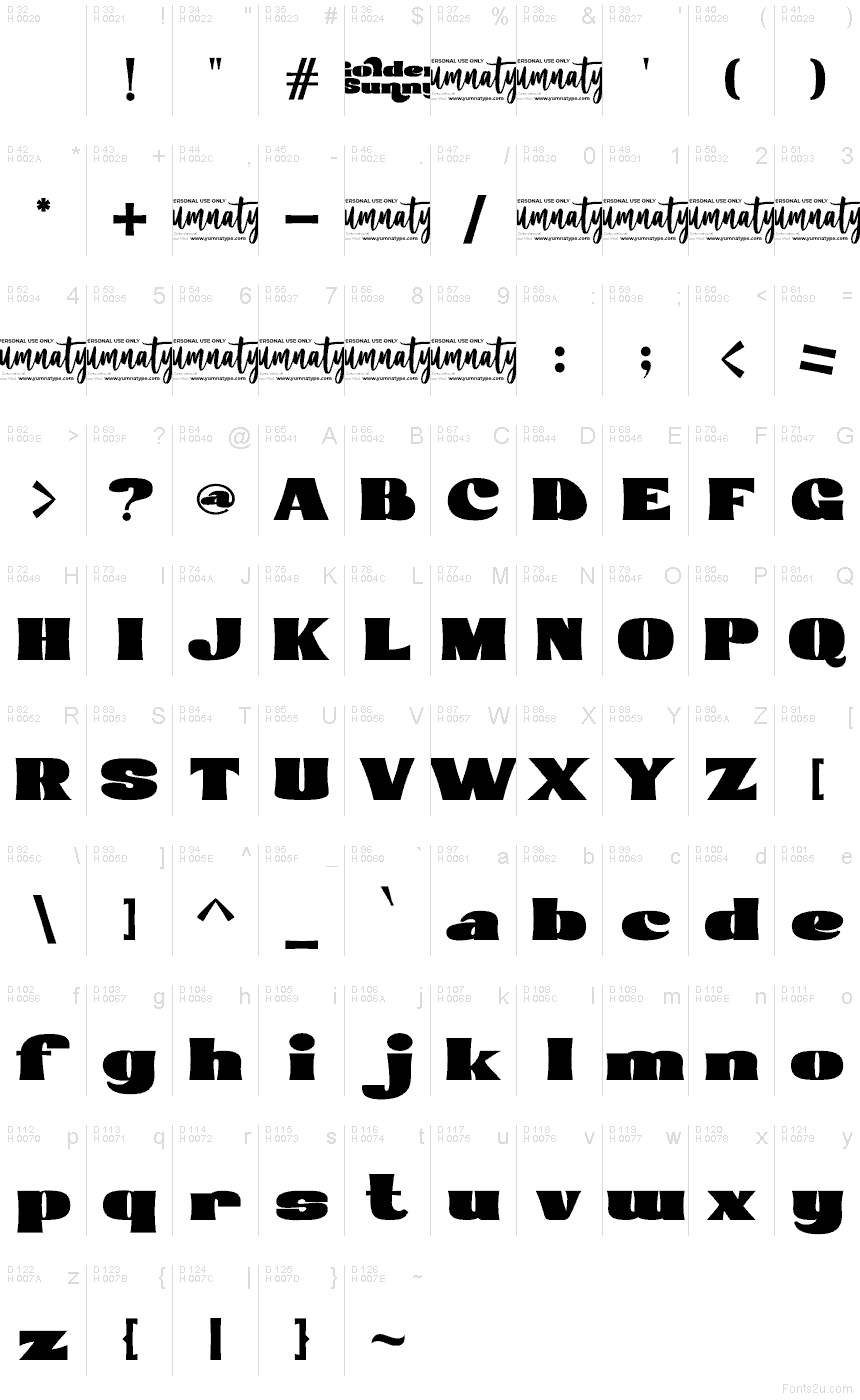
Golden Sunny font by Yumna Family is a free serif typeface with a bold, blobby charm that feels like sunshine poured into ink. Thick, inky strokes swell into rounded shapes, while the tiny cut-in counters and soft curves give it a playful, almost psychedelic rhythm. It feels retro and warm rather than rigid or formal, so big words look like they’re stamped out of velvet or painted on a vintage sign.
Using Golden Sunny, headlines instantly gain that chunky, nostalgic presence that’s hard to ignore. This free font shines on posters, merch, album covers, packaging, social media graphics, and bold logotypes where you want impact and personality in just a few letters. Keep it large for maximum legibility and pair it with a clean, light sans serif for body text to let Golden Sunny do the heavy lifting up top.